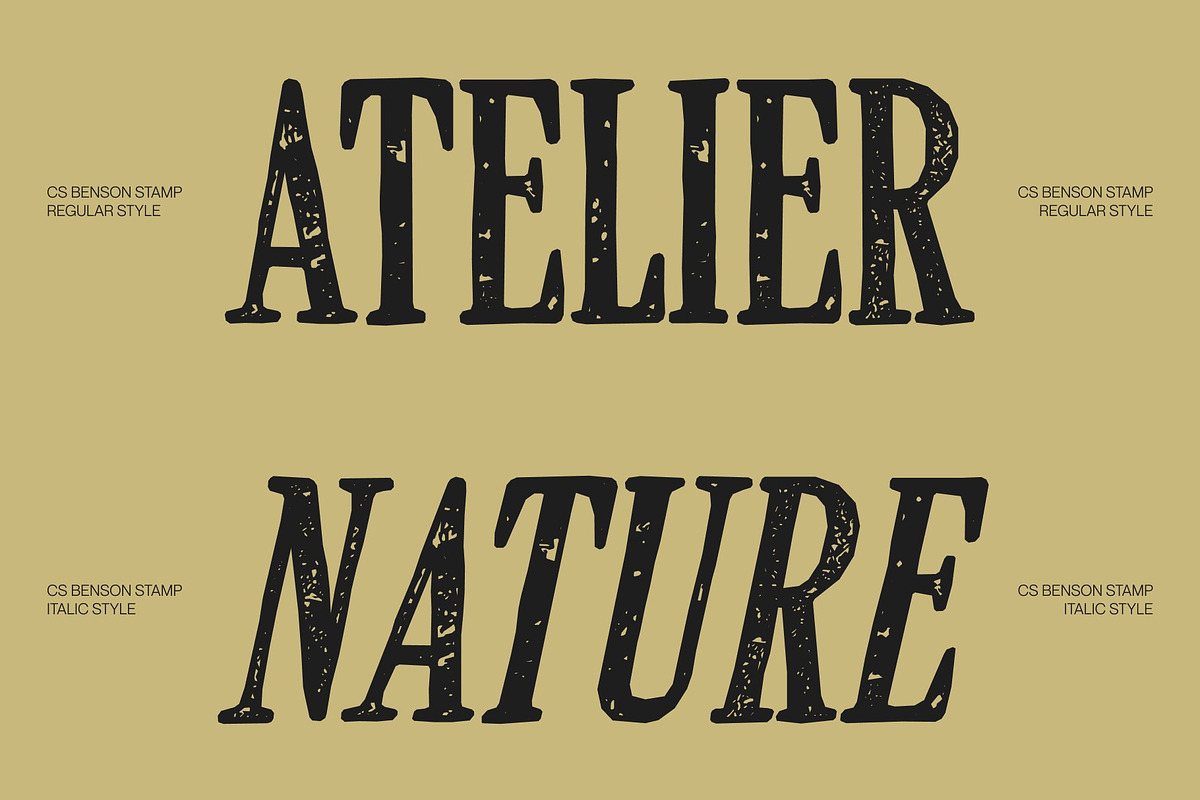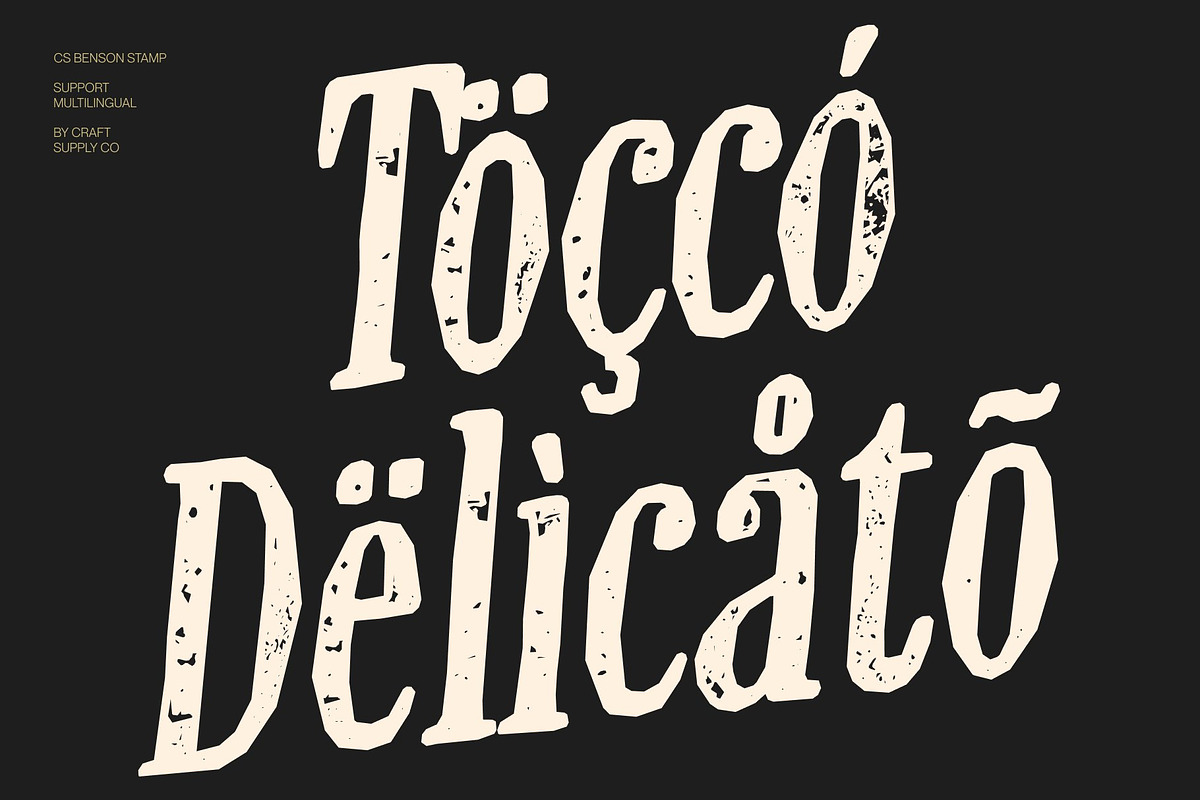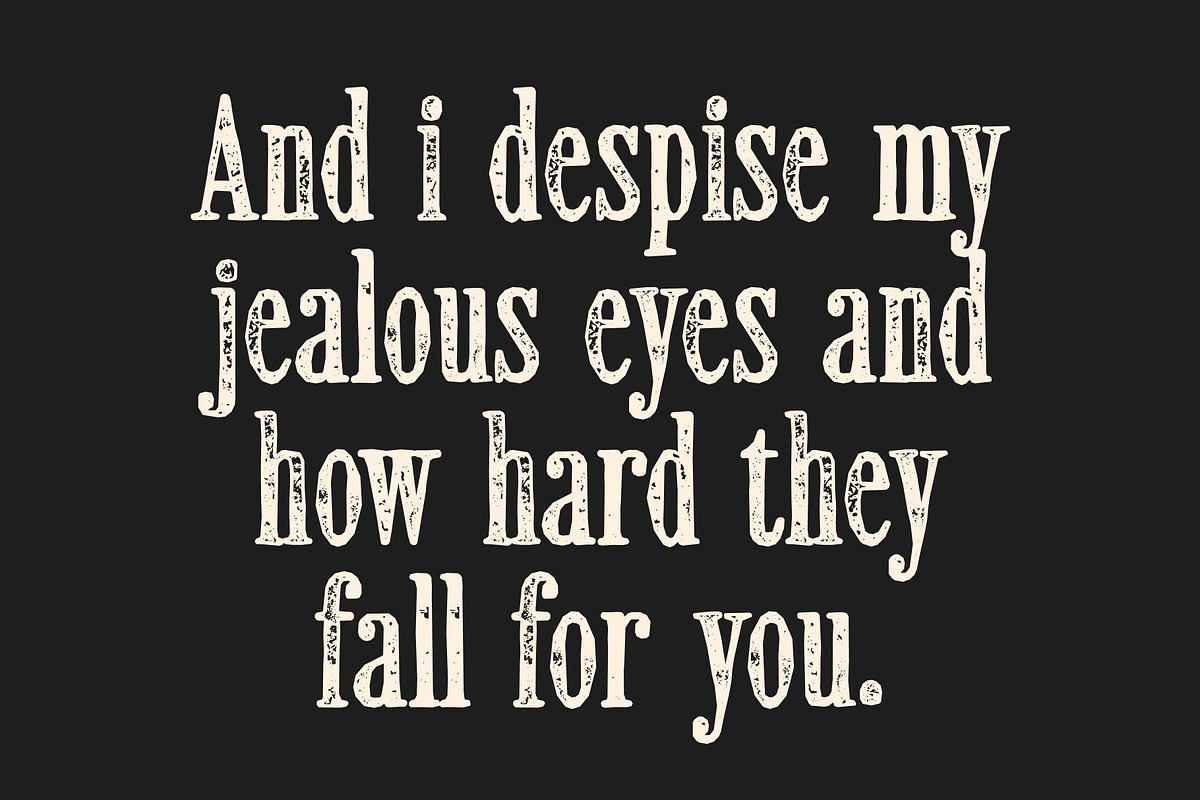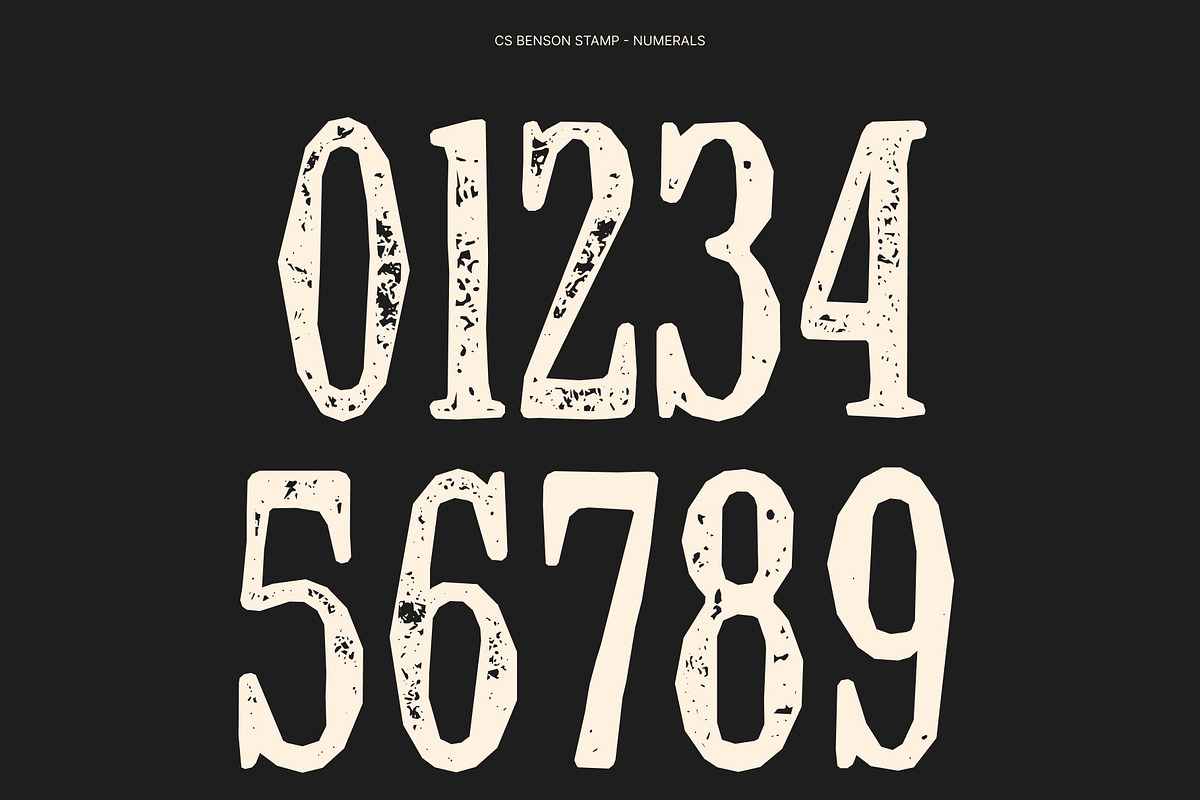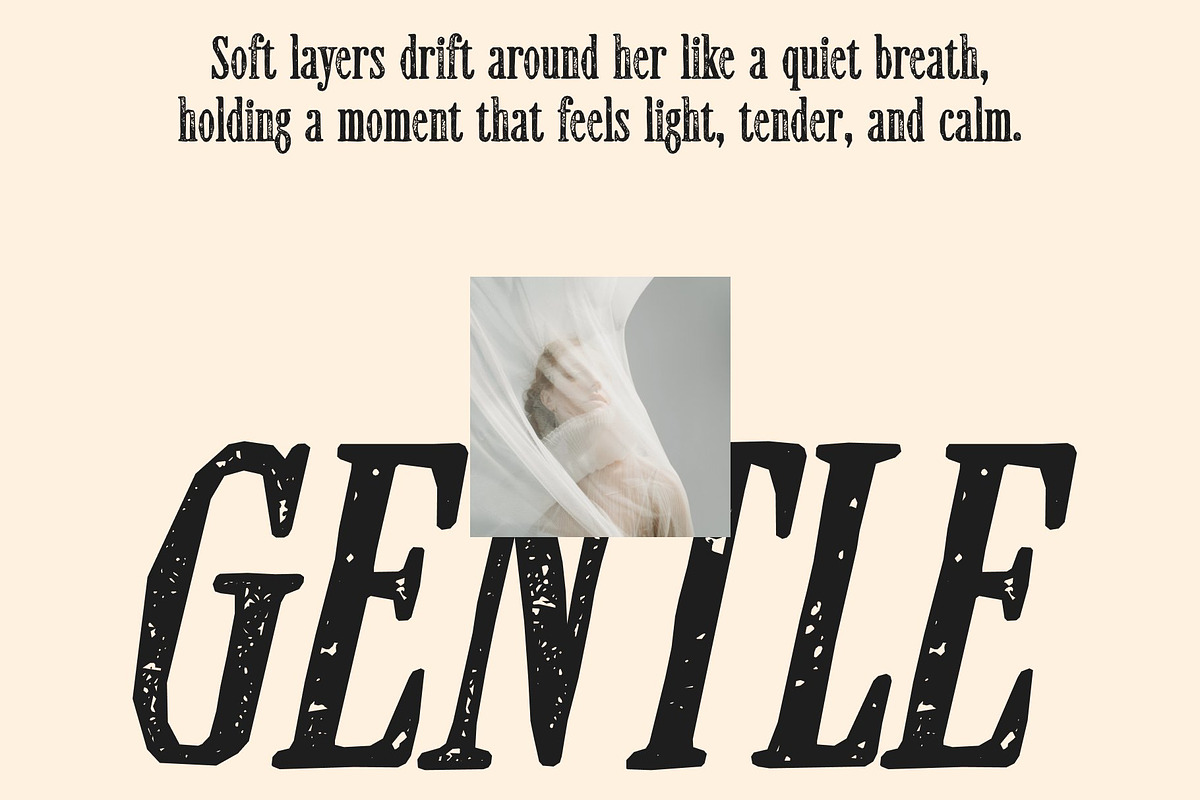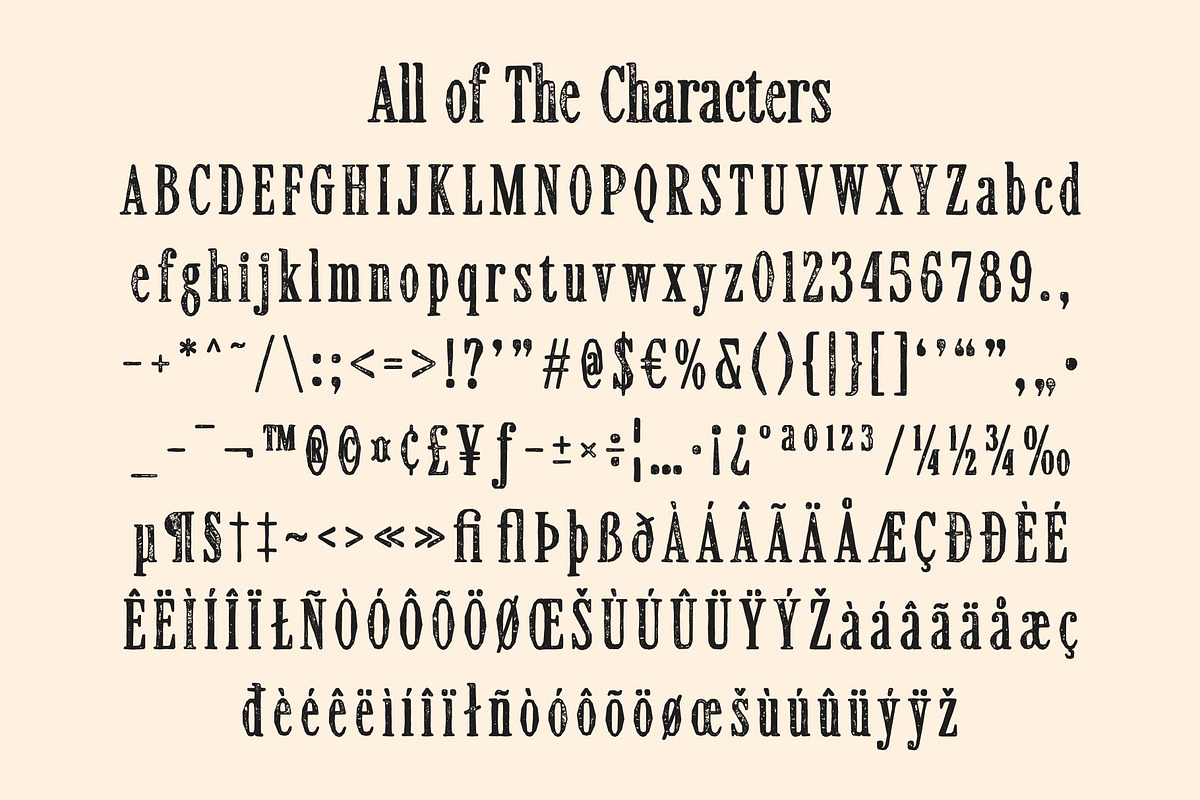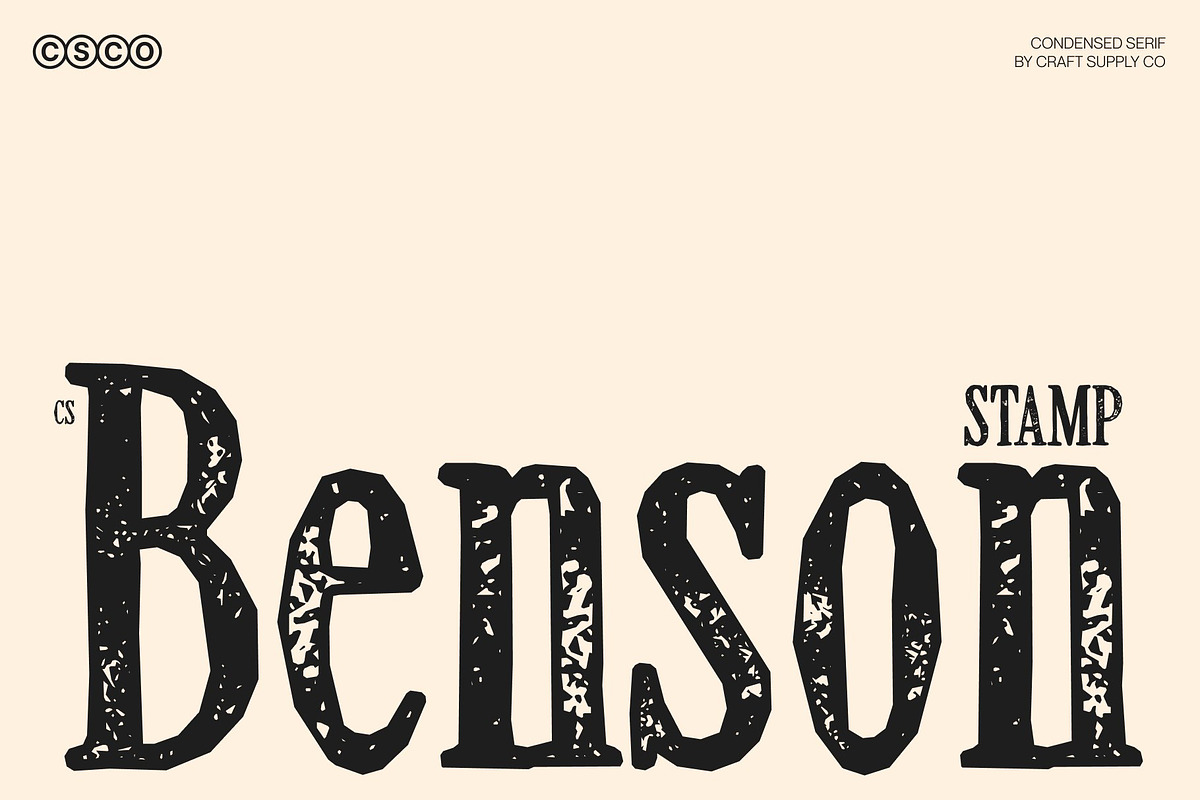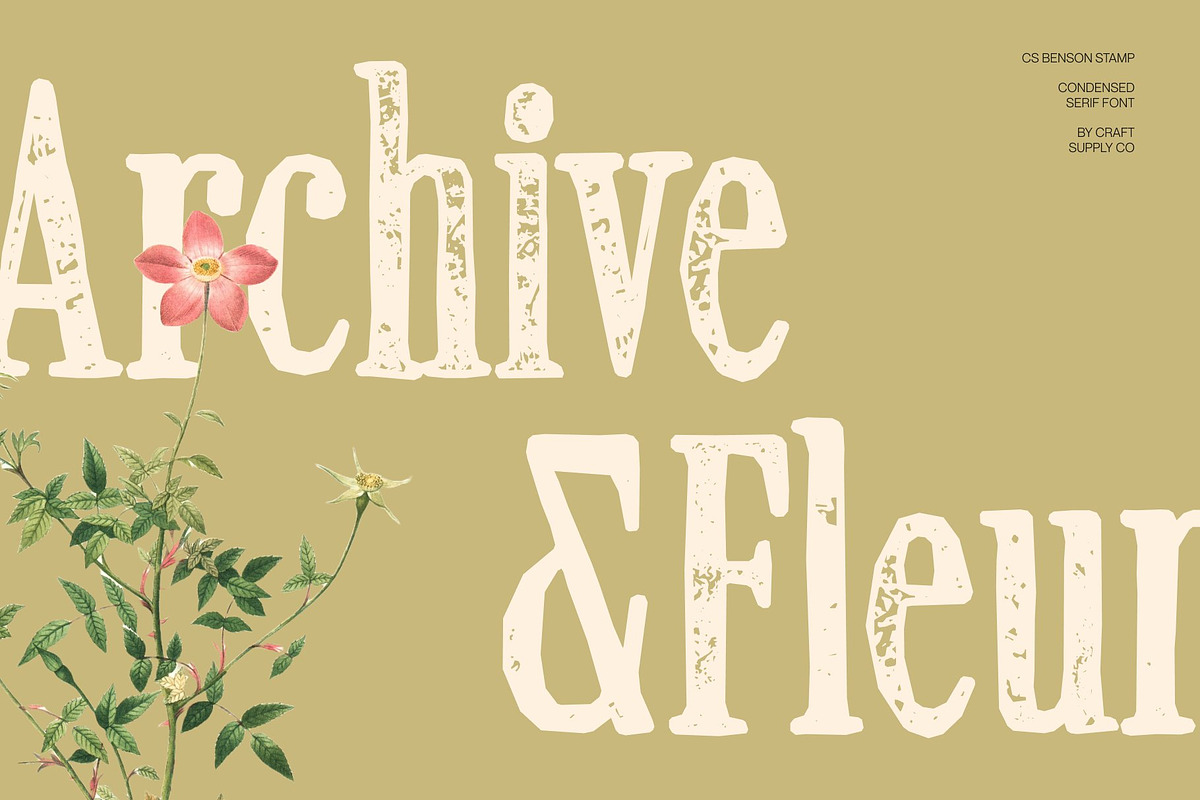
CS Benson Stamp
CS Benson Stamp – Classic Font: Timeless Elegance with Vintage Texture
Clean and Condensed Serif Structure This is a modern serif font featuring a clean, slim, and condensed structure, now enriched with a distinctive stamp effect. Its tall, narrow proportions remain space-efficient and elegant, while the stamped texture introduces subtle imperfections that add warmth and character. This blend creates a refined balance between precision and organic charm.
Refined Look with an Aged, Artistic Feel The classic serif details of this font are enhanced by worn ink textures and slightly distressed edges, giving the font a softly aged appearance. The stamp effect adds visual depth and a handcrafted quality, transforming its polished structure into something more expressive and tactile perfect for designs that value sophistication with personality.
Perfect for Editorial, Branding, and Vintage-Inspired Designs Ideal for magazines, books, fashion editorials, packaging, and premium branding, excels in projects that seek timeless elegance with a nostalgic twist. The stamped texture brings an old-print aesthetic reminiscent of traditional publishing and vintage presses, making it especially suitable for luxury, heritage, and artistic concepts.
Where Tradition Meets Modern Style By combining classic serif influence, modern condensed proportions, and a vintage stamp texture, bridges past and present beautifully. It feels elegant yet approachable, refined yet expressive an excellent choice for contemporary creatives who want their typography to feel enduring, artistic, and rich with character.
CS Benson Stamp Regular
CS Benson Stamp Italic